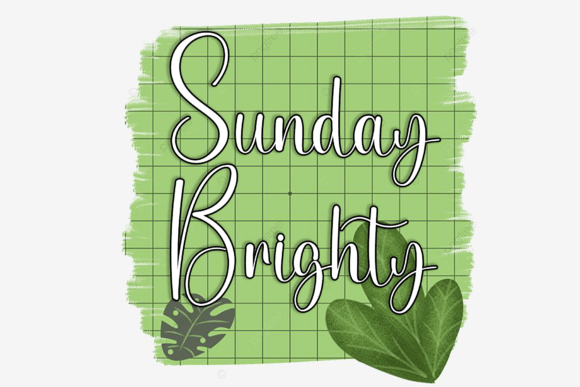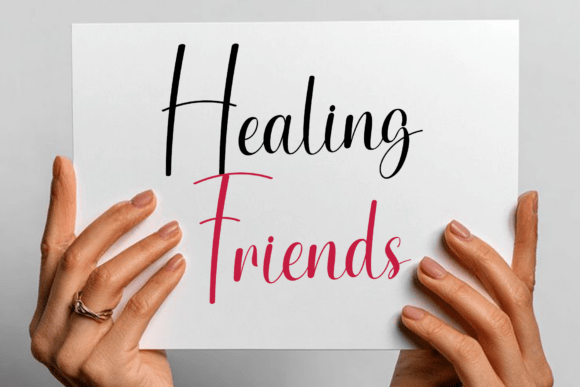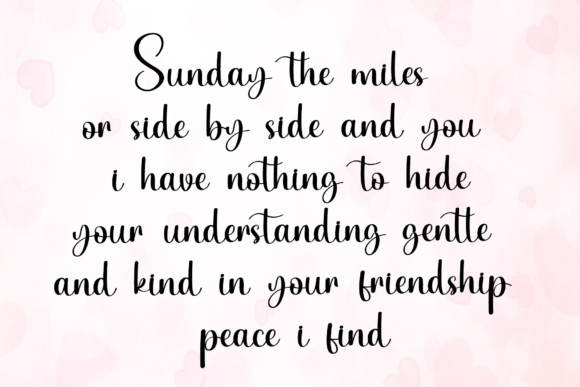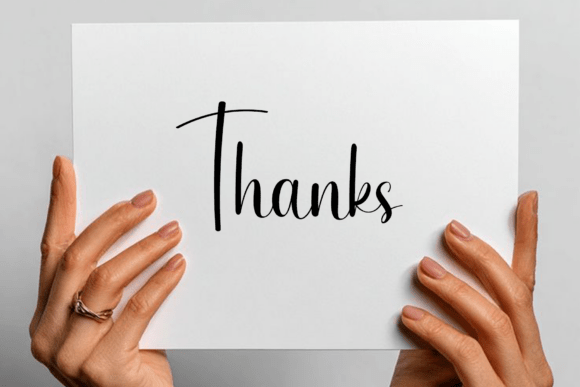
Introducing Alrighty Font: The Timeless Handwritten Font for Stunning Designs
Are you a designer or crafter looking for a font that can elevate your creative projects to the next level? Look no further than Alrighty Font, a lovely and timeless handwritten font that is sure to capture your audience’s attention. In this article, we’ll dive into the world of Alrighty Font and explore its unique features, benefits, and uses.
The Beauty of Alrighty Font
Alrighty Font is a stunning handwritten font that boasts a unique and beautiful touch. Every letter is carefully crafted to bring a sense of elegance and sophistication to your designs. The font’s timeless quality ensures that it will never go out of style, making it a valuable addition to your font collection.
Alrighty Font is the perfect choice for creating eye-catching logos, branding, and quotes. Its elegant and cursive script makes it ideal for designs that require a touch of sophistication and refinement. Whether you’re creating a logo for a new business or designing a quote for social media, Alrighty Font is sure to make your design stand out.
What Sets Alrighty Font Apart
So, what makes Alrighty Font so special? Here are just a few features that set it apart from other fonts:
- Unique and Beautiful Touch: Every letter in Alrighty Font has a unique and beautiful touch that will make your design come alive.
- Timeless Quality: Alrighty Font has a timeless quality that ensures it will never go out of style.
- Elegant and Cursive Script: The font’s elegant and cursive script makes it perfect for designs that require a touch of sophistication and refinement.
- Highly Versatile: Alrighty Font is highly versatile and can be used for a wide range of design projects, from logos and branding to quotes and social media graphics.
Benefits of Using Alrighty Font
Using Alrighty Font in your designs can bring a range of benefits, including:
- Increased Visual Appeal: Alrighty Font is sure to capture your audience’s attention and add visual appeal to your designs.
- Improved Brand Recognition: By using Alrighty Font in your branding, you can create a consistent and recognizable visual identity for your business.
- Enhanced Creativity: Alrighty Font’s unique and beautiful touch can inspire creativity and help you to think outside the box.
Tips for Using Alrighty Font
Here are a few tips for using Alrighty Font in your designs:
- Use it for Headings and Titles: Alrighty Font is perfect for headings and titles, where its elegant and cursive script can really shine.
- Experiment with Colors and Textures: Don’t be afraid to experiment with different colors and textures to add depth and interest to your designs.
- Pair it with Other Fonts: Alrighty Font can be paired with other fonts to create a unique and visually appealing combination.
In conclusion, Alrighty Font is a stunning handwritten font that is sure to elevate your designs to the next level. Its unique and beautiful touch, timeless quality, and elegant and cursive script make it perfect for creating eye-catching logos, branding, and quotes. Whether you’re a designer or crafter, Alrighty Font is a valuable addition to your font collection.